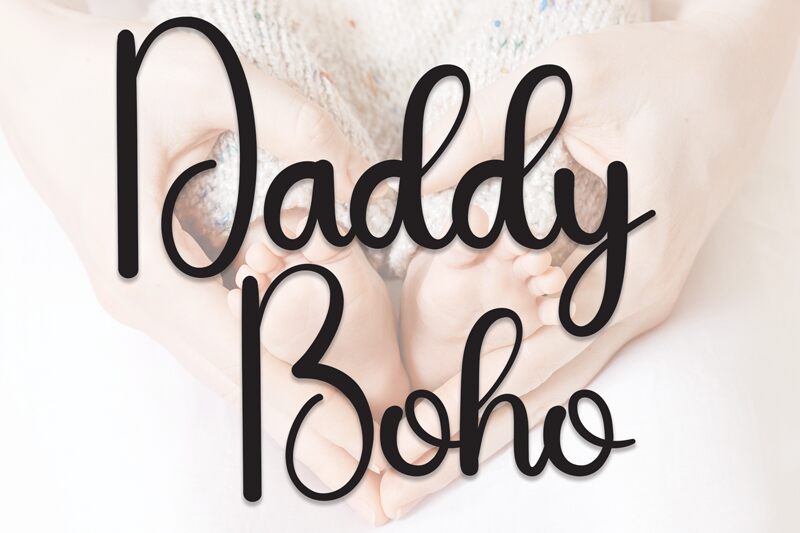
Daddy Boho
Daddy Boho is a captivating handwritten font designed by Andi Moz. Its whimsical, free-flowing strokes evoke a sense of effortless elegance, seamlessly blending vintage charm with modern sensibilities. The font's organic, hand-crafted aesthetic lends itself beautifully to a wide range of applications, from editorial layouts and packaging design to branding and marketing collateral.
Daddy Boho's versatility lies in its ability to convey a warm, approachable tone while maintaining a touch of sophistication, making it an ideal choice for projects that require a delicate balance between playfulness and refinement.